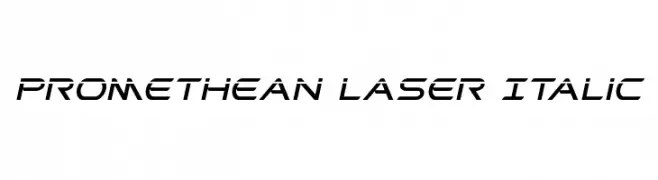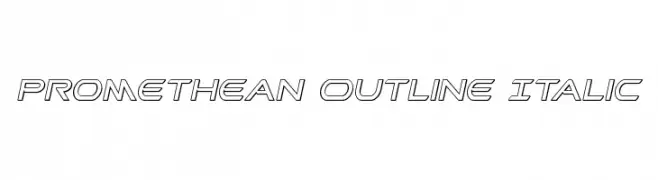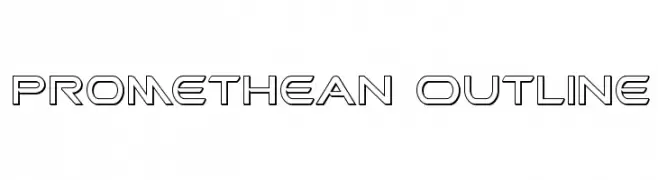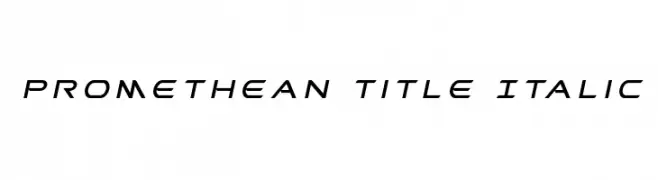
A futuristic, italic font with sleek, angular characters and a tech-inspired design.
A geometric outline font with sharp, angular letterforms and a modern aesthetic.
A modern, italic outline font with a futuristic and dynamic style.
A sleek, semi-italic font with a modern, dynamic design.
A sleek, italicized font with a futuristic and dynamic style.
A futuristic, geometric font with sharp, angular letterforms.
A sleek, modern italic font with clean lines and a subtle slant.